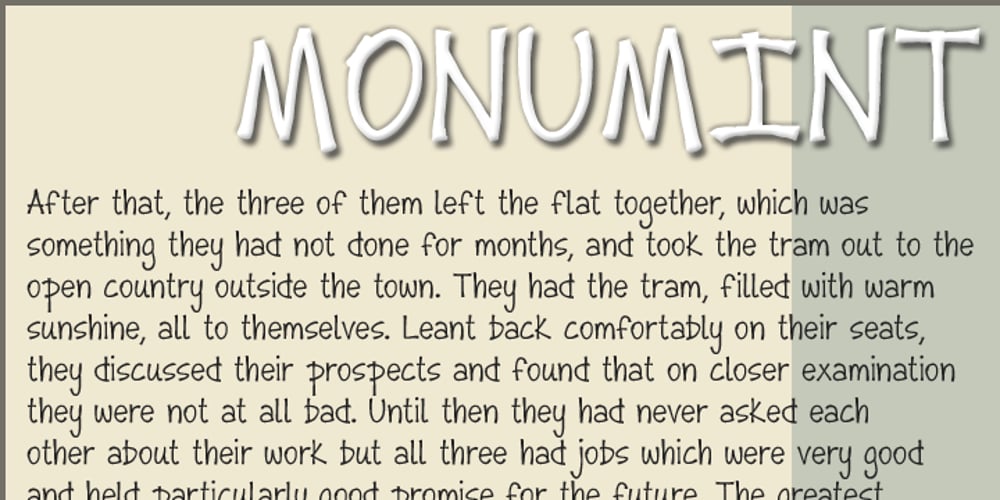
Monumint
Monumint font
Monumint Font Family was designed by Alec Julien and published by Haiku Monkey. Monumint contains 2 styles and family package options. A lone figure stands behind a national monument, in the shadows thrown by half-broken, flickering streetlights. A car passes, and the lurker takes out a fat marker, dripping with noxious ink. Black lines, smooth but slightly broken by the texture of marble, appear underneath the marker…